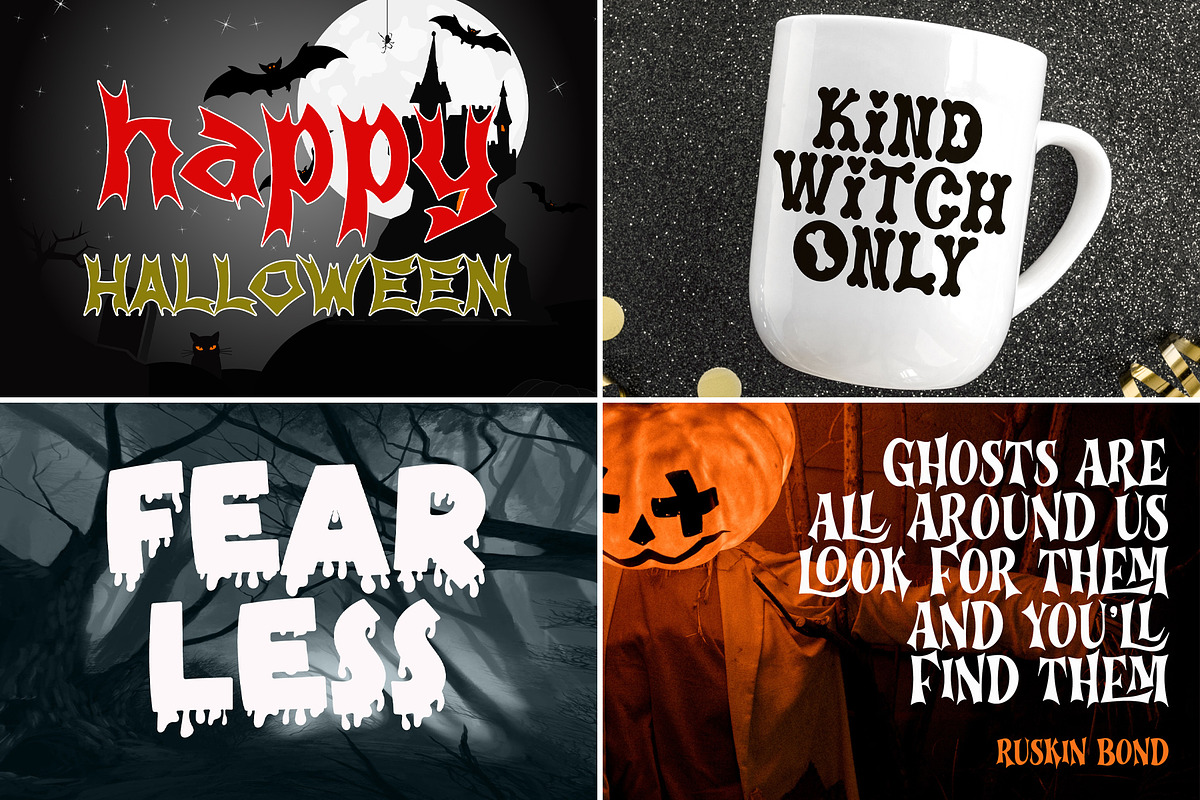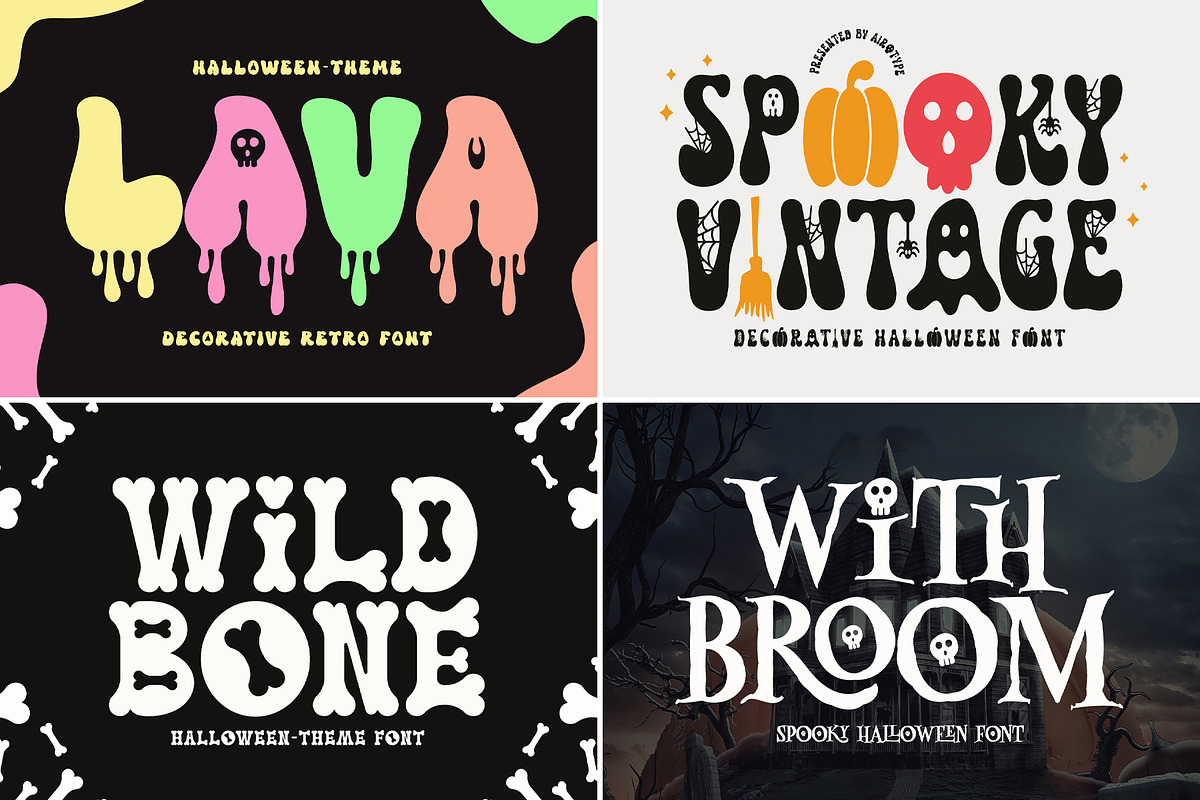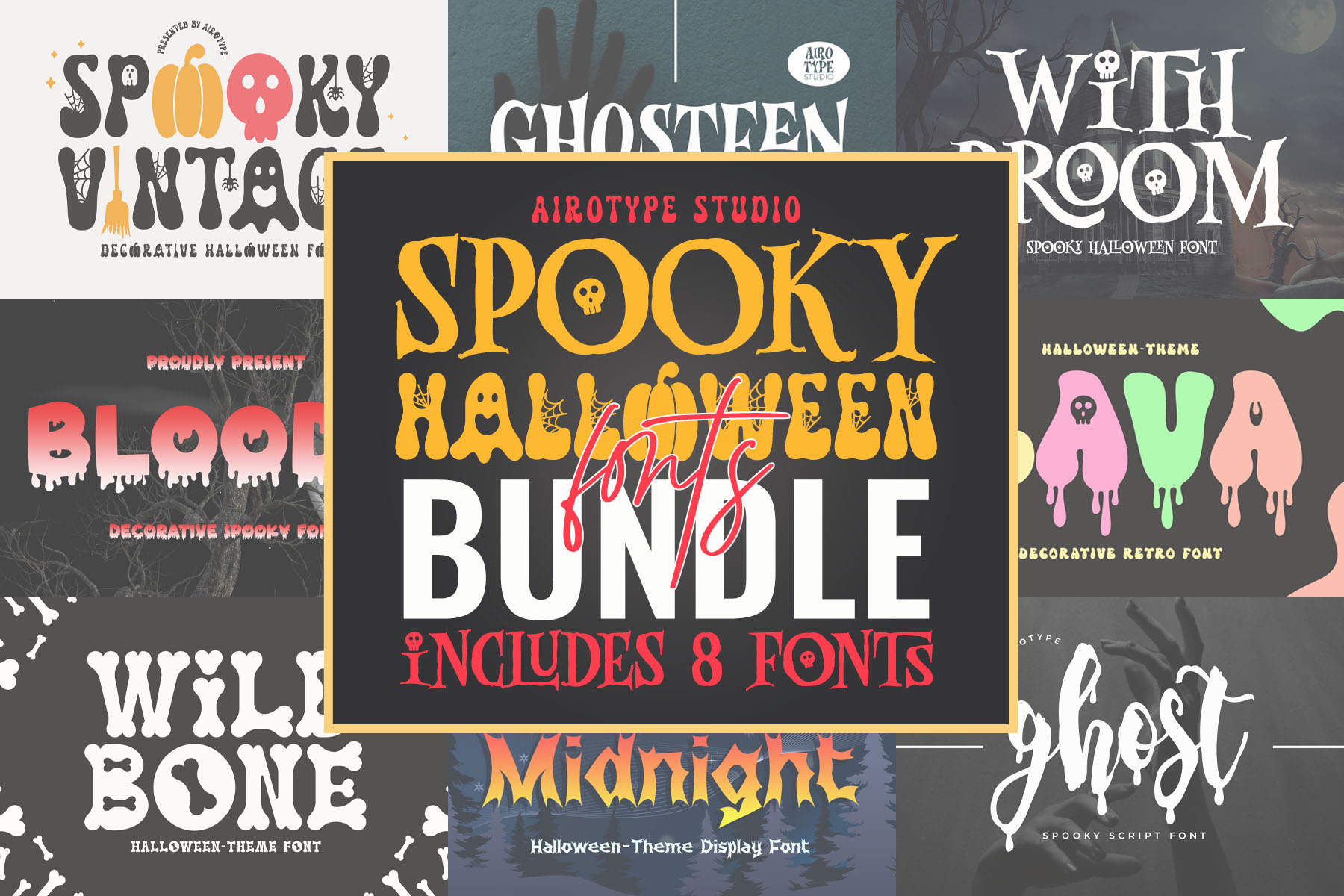
Halloween Font Bundle 8 Spooky Fonts
This is the bundle of 8 spooky fonts special for halloween. It has several styles, from display, retro, and script.
Fonts included in this bundle are:
- Hello Midnight
- Ghosteen
- Bloody
- With Broom
- Lava
- Ghost
- Spooky Vintage
- Wild Bone